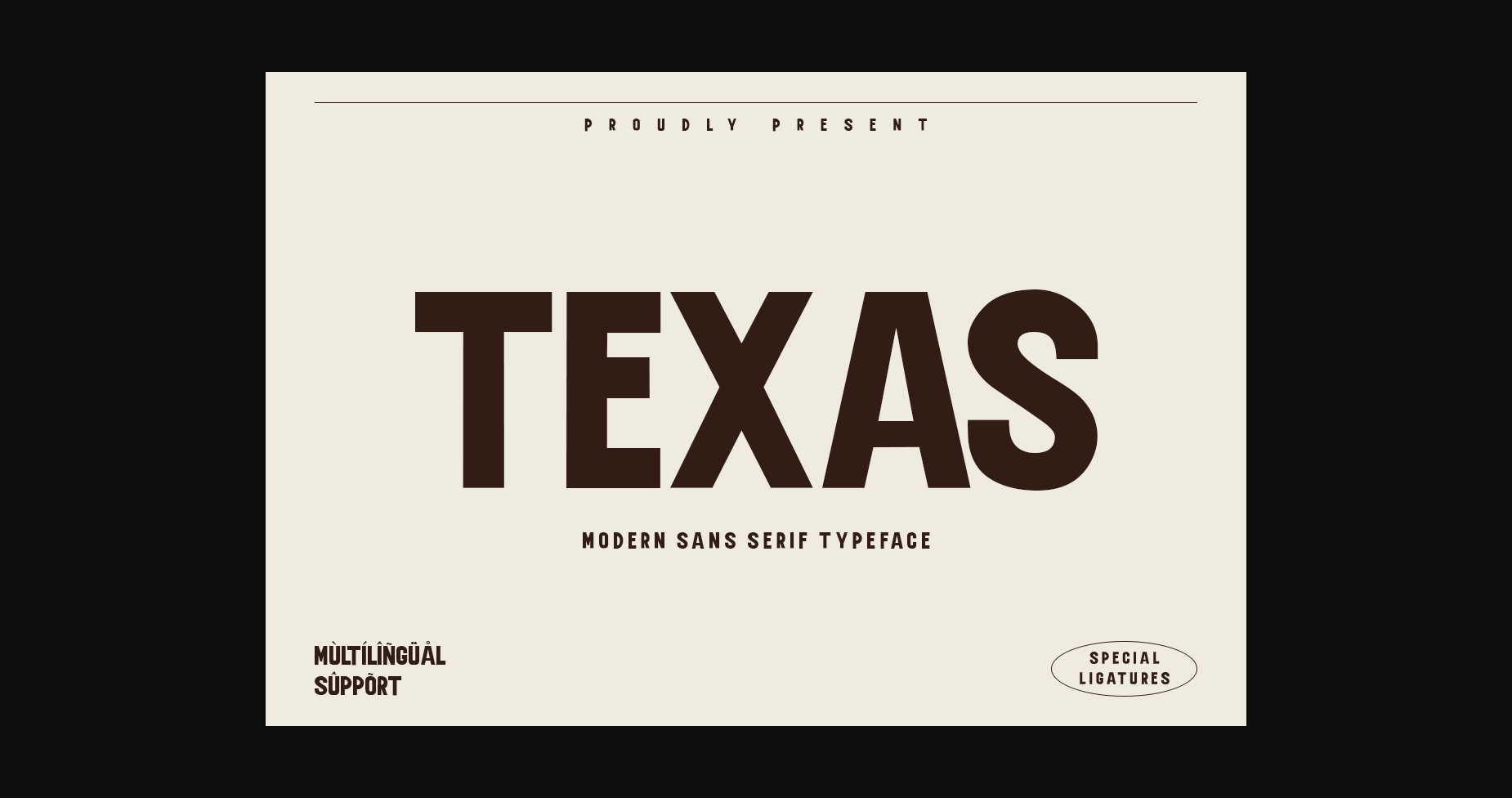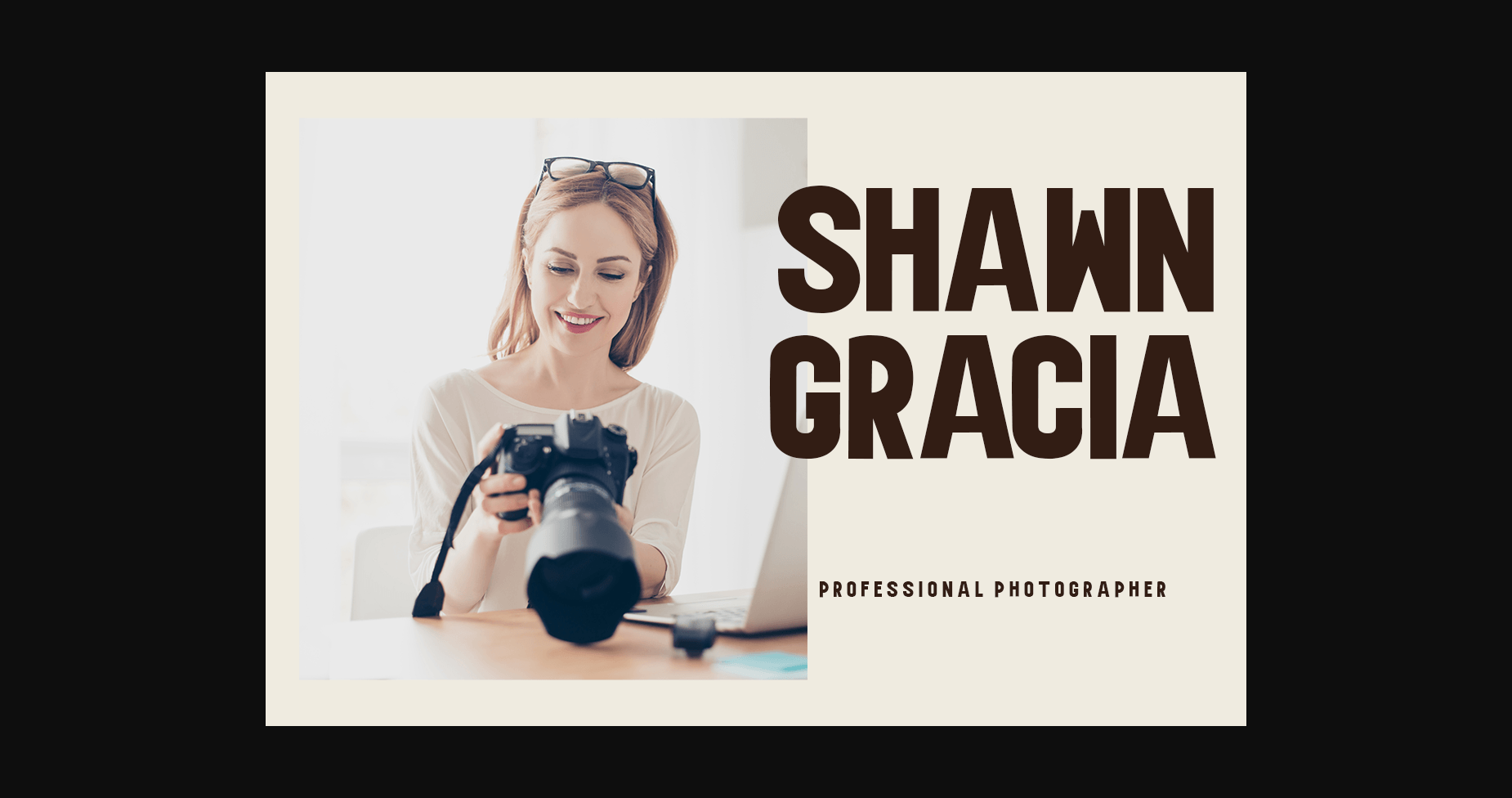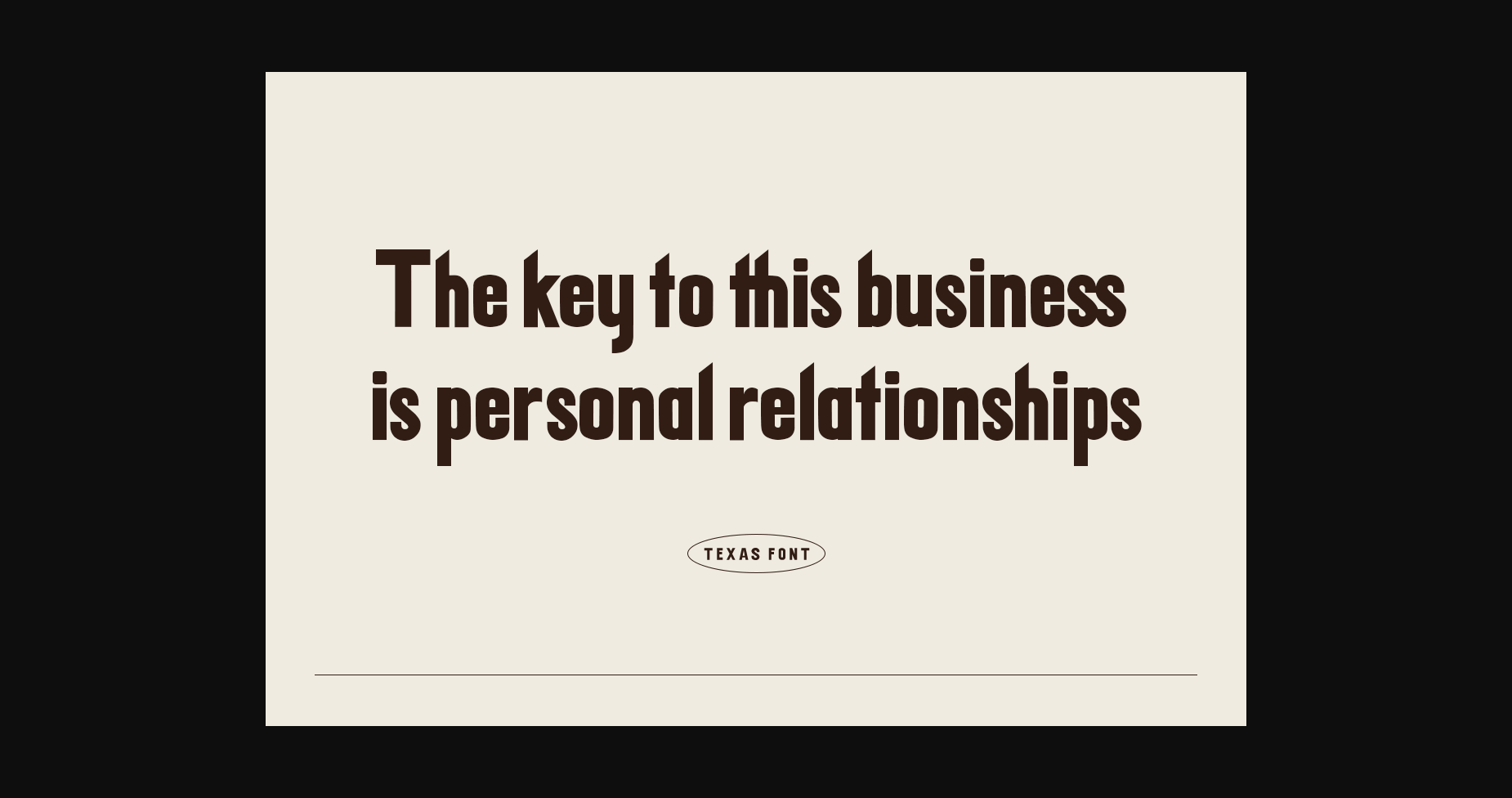
About Texas Font
Texas is a modern and simple but enthusiastic sans serif font. It will give high value to your design such as branding, poster, quote, web, blog, magazine, newspaper, game name, movie title, advertisement, all social media, logo, t-shirt design, lettering and much more! This font is PUA encoded which means you can access all of the glyphs and swashes with ease!